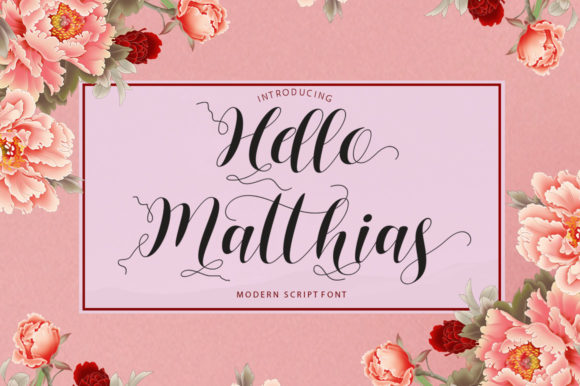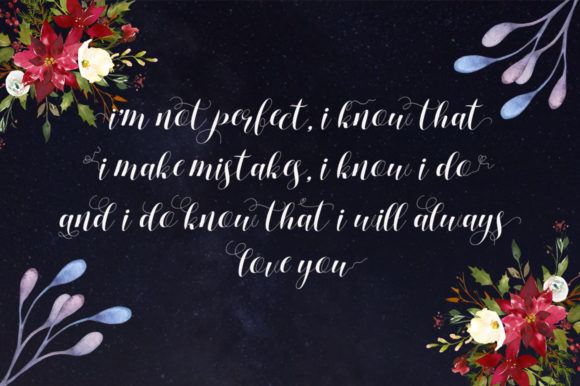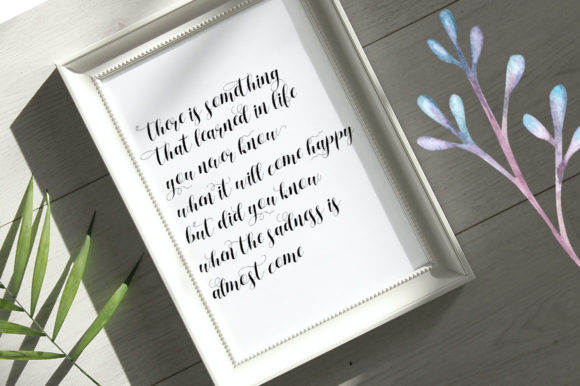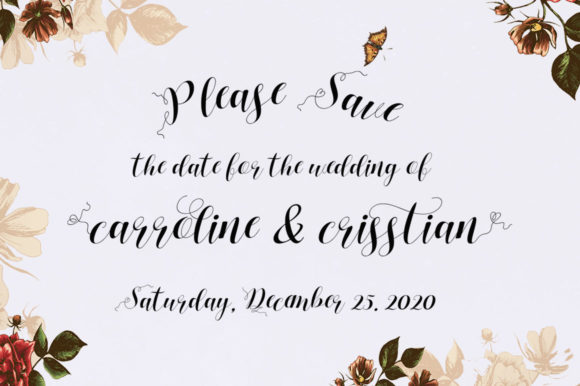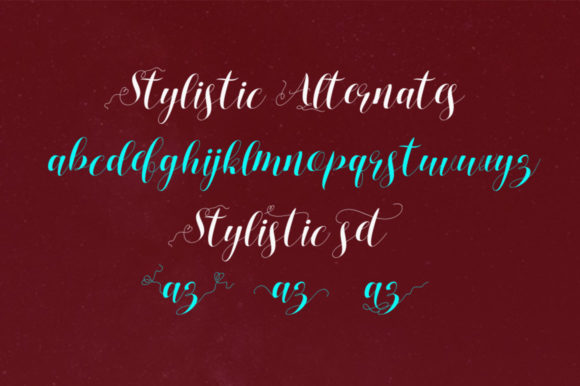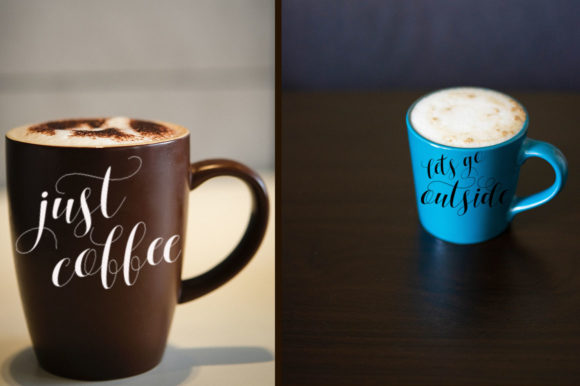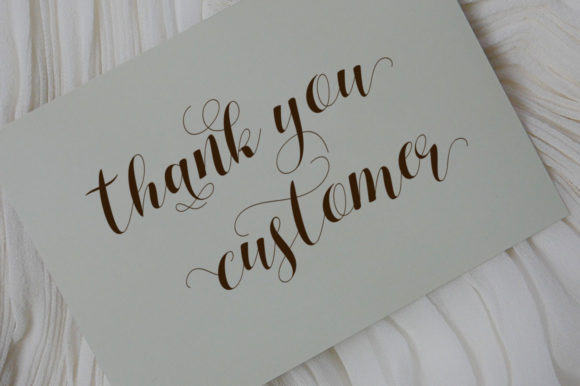
Hello Matthias Font
Hello Matthias feels equally charming and elegant. This stunning script font is a stylish homage to classic calligraphy. It features a varying baseline, smooth lines, gorgeous glyphs and stunning alternates.